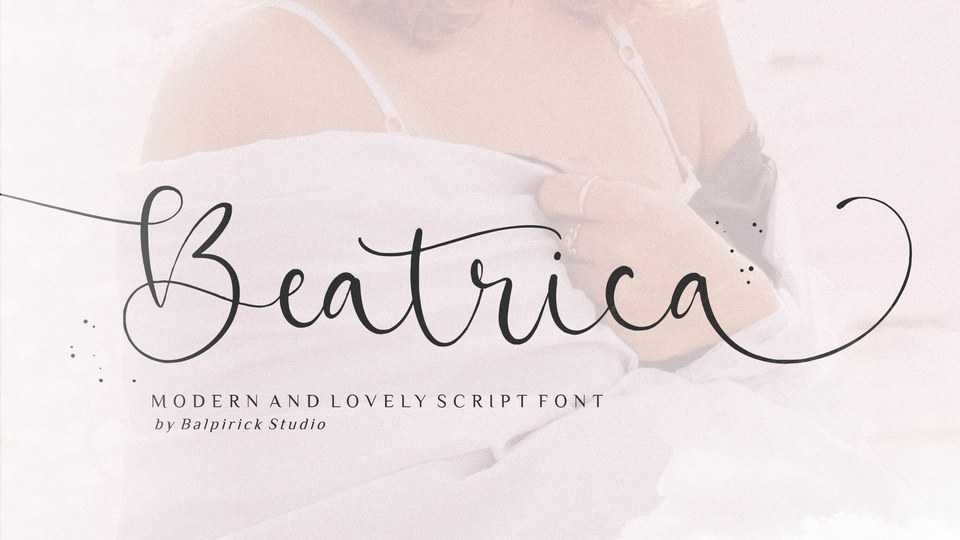
Download Beatrica font, a stylish and delicate handwritten typeface. Beatrica has a clean, thin and smooth vibe and it will be a hit for any design that you want to add it to.
Designer: Balpirick Studio